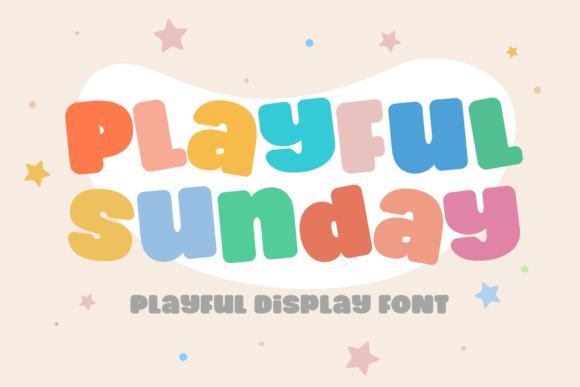
Immerse yourself in the whimsical world of Palyful Sunday, a remarkable display font that exudes childlike wonder and boundless creativity. Crafted by the talented Hayletter Creative, this enchanting font family captures the essence of joy and imagination, making it the perfect choice for adding a touch of playful charm to your digital creations.
Unlike ordinary fonts that blend into the background, Palyful Sunday demands attention with its bold, thick letters that dance across the screen like playful children. Its unique and eye-catching design is sure to leave a lasting impression, captivating your audience and inviting them to explore the depths of your imagination.
Step into a realm where fonts come alive, where each character possesses a personality of its own. Palyful Sunday's playful and expressive style is идеально suited for capturing the magic of childhood stories, whimsical illustrations, and eye-catching headlines. Let your imagination run wild as you create designs that spark joy and ignite the creativity within.
With Palyful Sunday, the possibilities are truly limitless. Unleash your inner child and let the font guide you on a journey of artistic exploration. Create enchanting logos that speak to the hearts of your customers, design vibrant posters that bring life to your events, or craft captivating social media posts that demand attention.
Join the growing community of designers, artists, and creatives who have embraced the magic of Palyful Sunday. Let your designs radiate with joy, playfulness, and boundless creativity. Download Palyful Sunday today and unlock a world of endless possibilities.